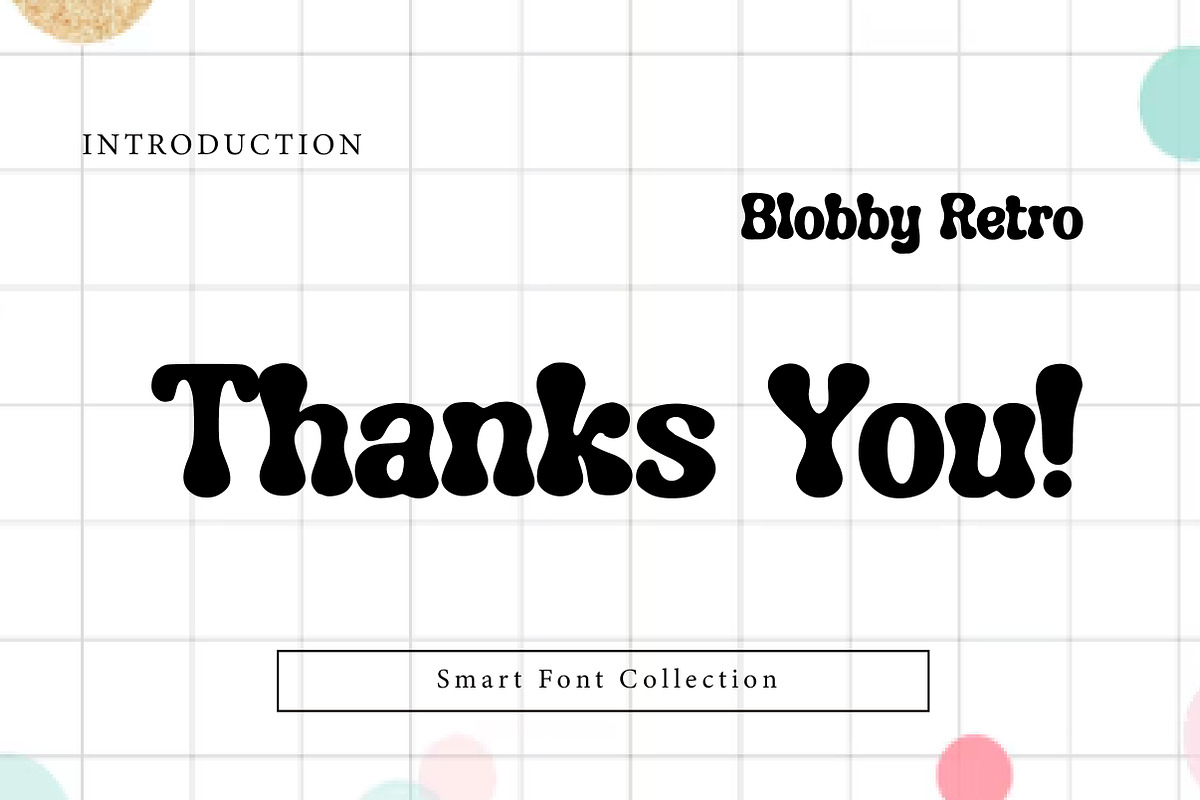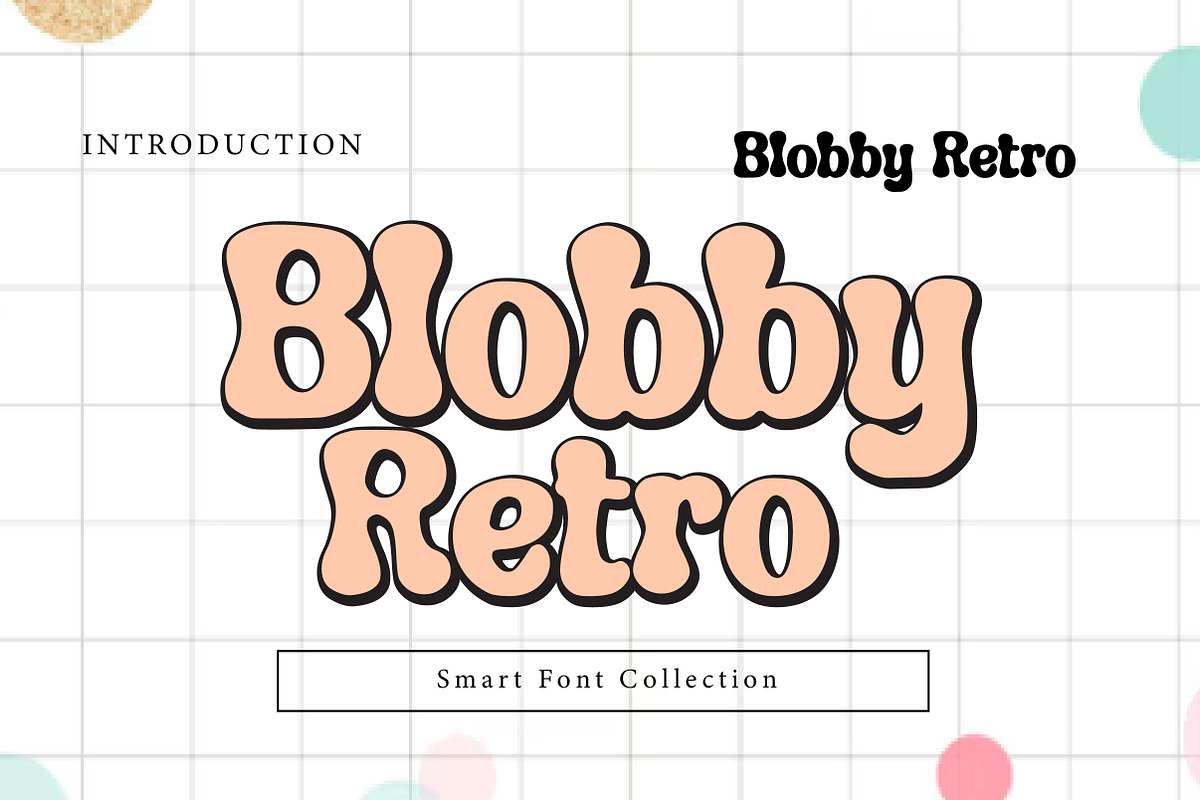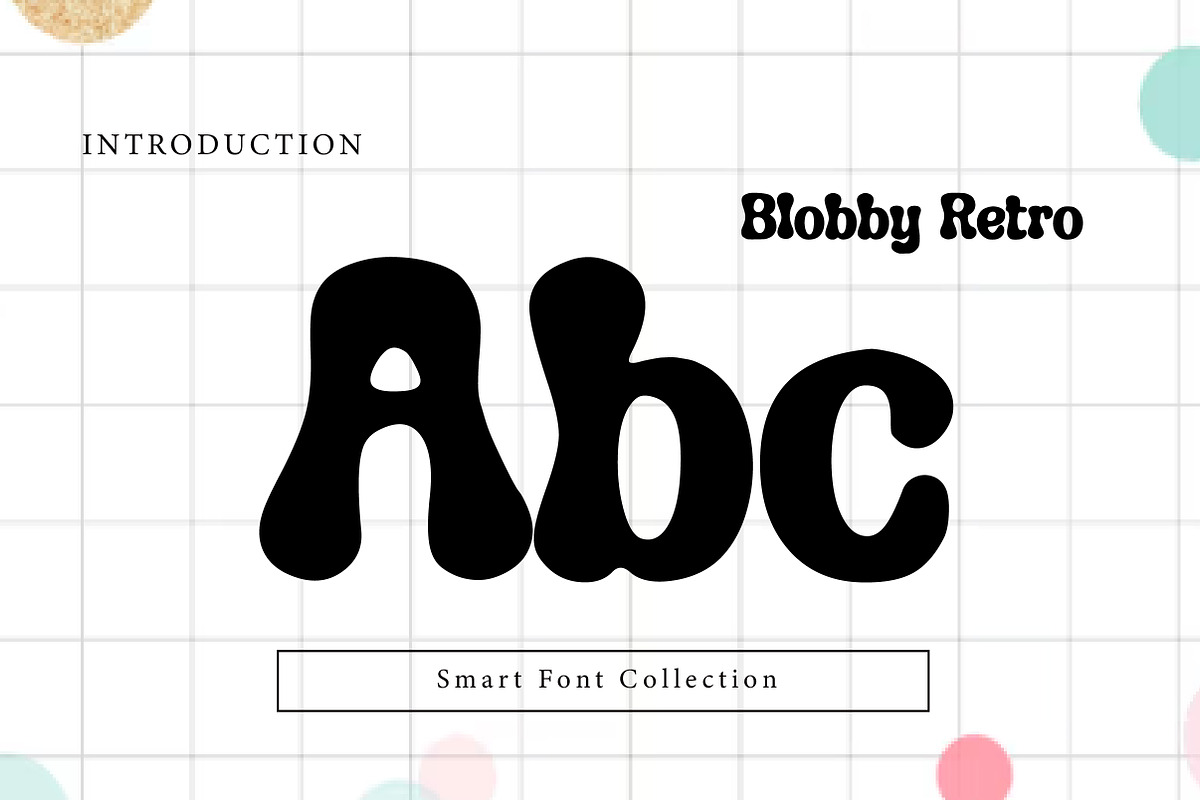
Blobby retro
Blobby Retro is a chunky, playful retro display font with soft, blobby shapes and rounded edges inspired by 60s–70s psychedelic typography. Its bold curves and bubbly personality make it perfect for logos, posters, packaging, headlines, album covers, stickers, and nostalgic branding. Blobby Retro delivers a fun, groovy vibe that instantly grabs attention.